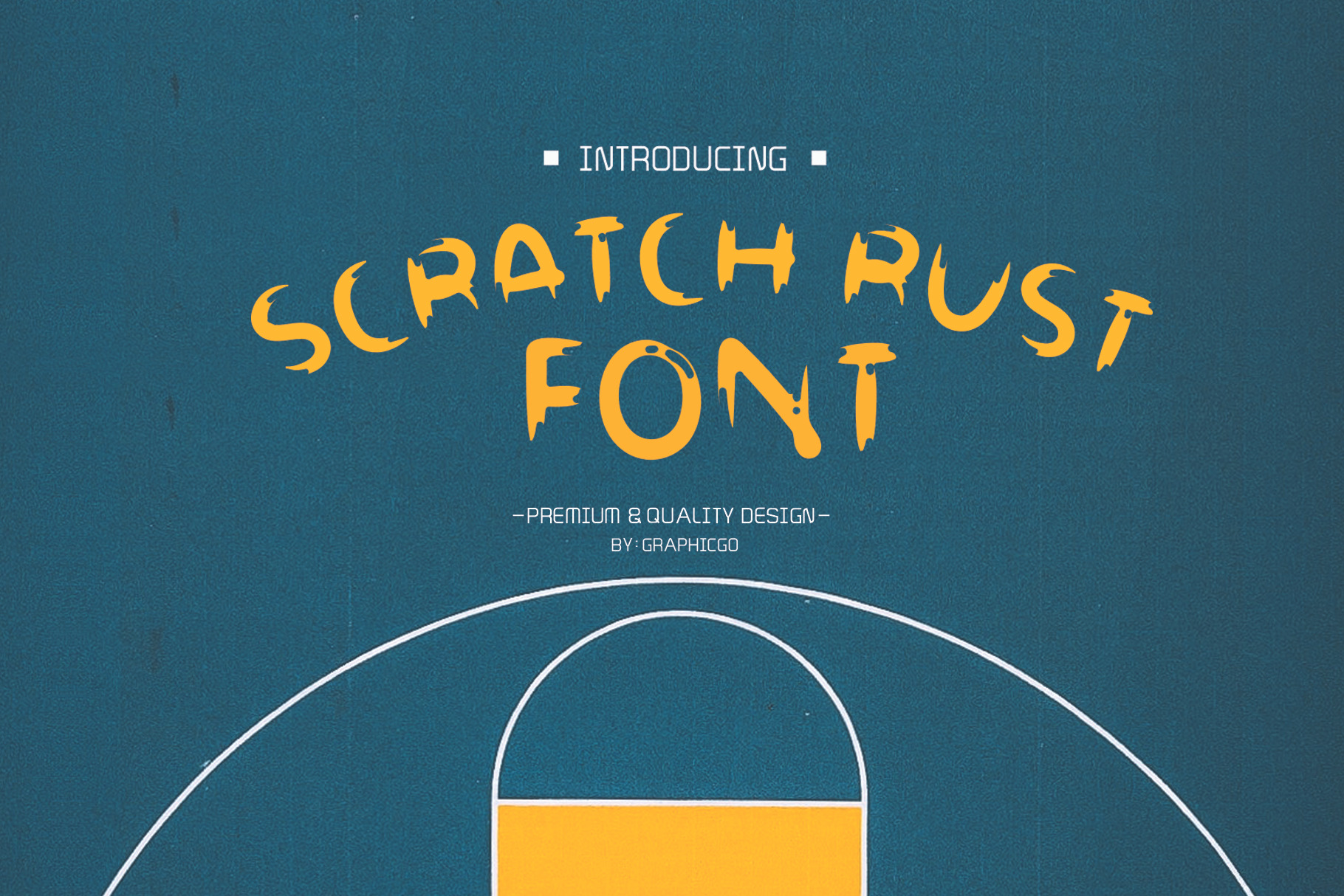
Scratch Rust Font
Scratch Rust Font is bold brush writing style. It 's perfect for organic products, cards, posters, wall art, branding, diy projects, greeting cards, labels, quotes, packaging, websites and much more.